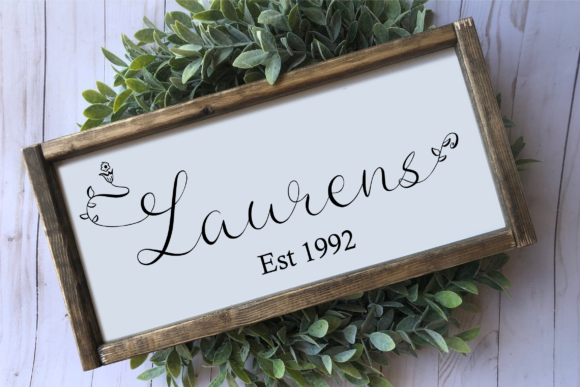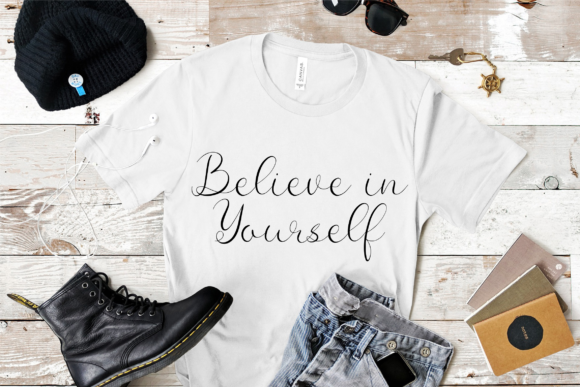
Leafdream Font
db-ku.com - Script & Handwritten -- Leafdream is a sweet, whimsical, flowing and thin script font. Featuring characters that dance along the baseline, this font will add a luxury spark to any design project that you wish to create!